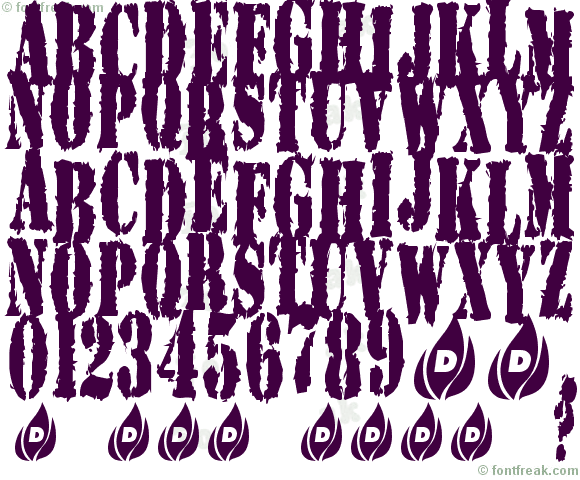
Mirror
The Mirror font by Dinctype! is a unique display typeface that captures attention with its striking visual style. Characterized by irregular, jagged edges and a bold stroke weight, this font offers a distinctive, rough-hewn aesthetic. The contrast between the thick and thin parts of the letters creates an engaging visual dynamic, making it perfect for projects that require a strong impact. The spacing is tight, contributing to its bold presence while still ensuring readability.
This font is particularly well-suited for a variety of creative applications. It can add a dramatic flair to movie posters, where its edgy feel aligns perfectly with themes of suspense or action. Wedding invitations that seek a modern yet unconventional approach can also benefit from the Mirror font, providing a playful twist on traditional design. Additionally, restaurant menus that wish to convey a trendy, urban vibe will find this font an excellent choice. Graphic designers working on branding for cafes or boutiques can leverage its unique style to create memorable logos that stand out in a crowded market.